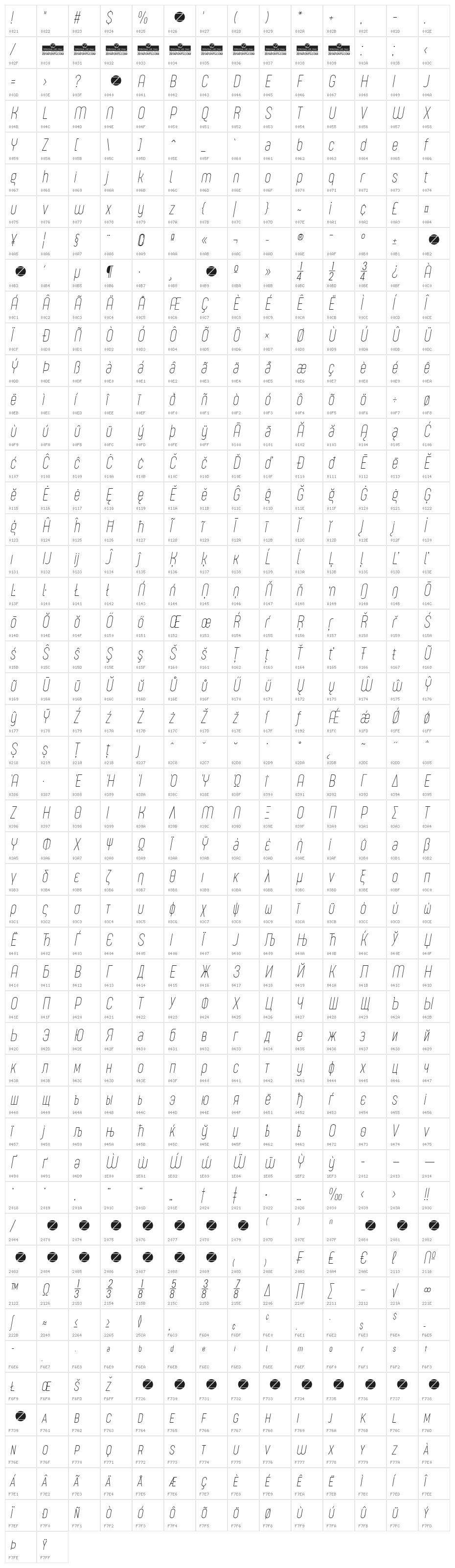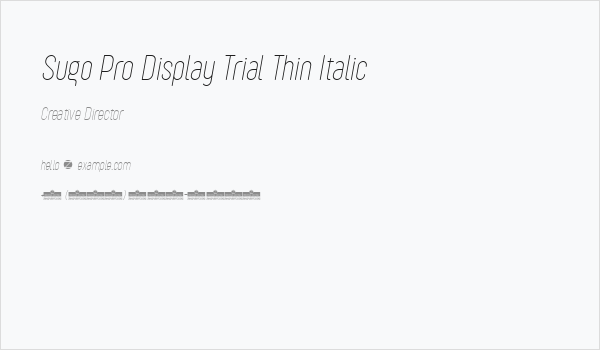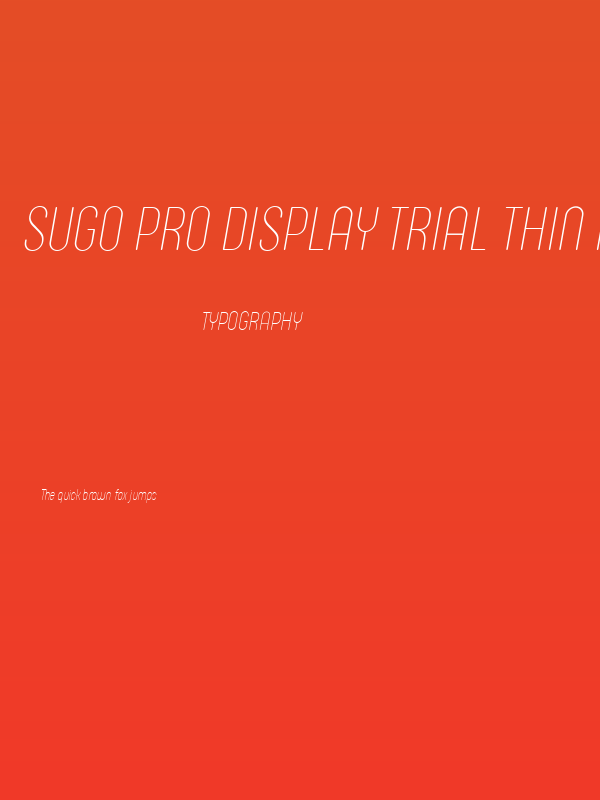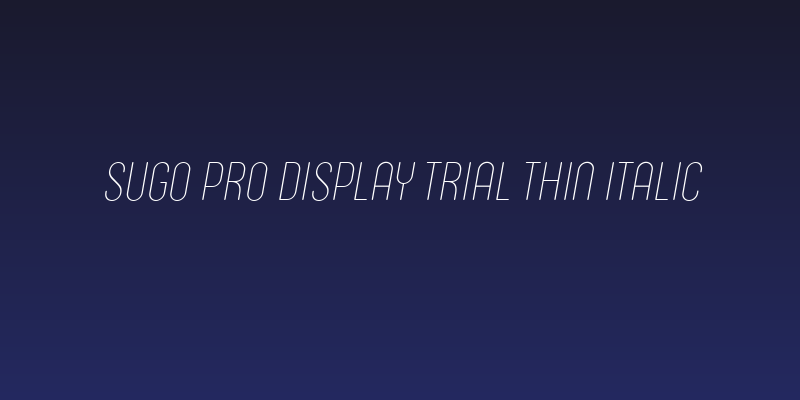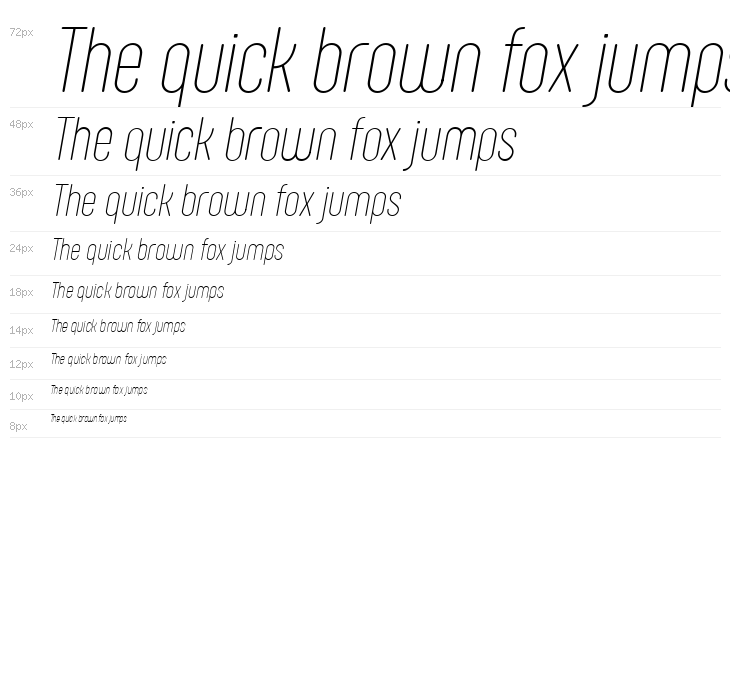
Sugo Pro Display Trial Thin Italic Font
Sugo Pro Display Trial Thin Italic Description
This font features a sleek and modern design with elongated, thin strokes that give it a refined and elegant appearance. The characters are slightly italicized, adding a dynamic and fluid feel to the overall style. The uppercase and lowercase letters maintain a consistent height, creating a harmonious and balanced look. The numerals and special characters are designed with the same thin and elongated style, ensuring uniformity across all elements. This font is ideal for projects that require a contemporary and sophisticated touch.
| Proposed Projects | Ideal for fashion magazines, luxury branding, modern websites, and elegant invitations. |